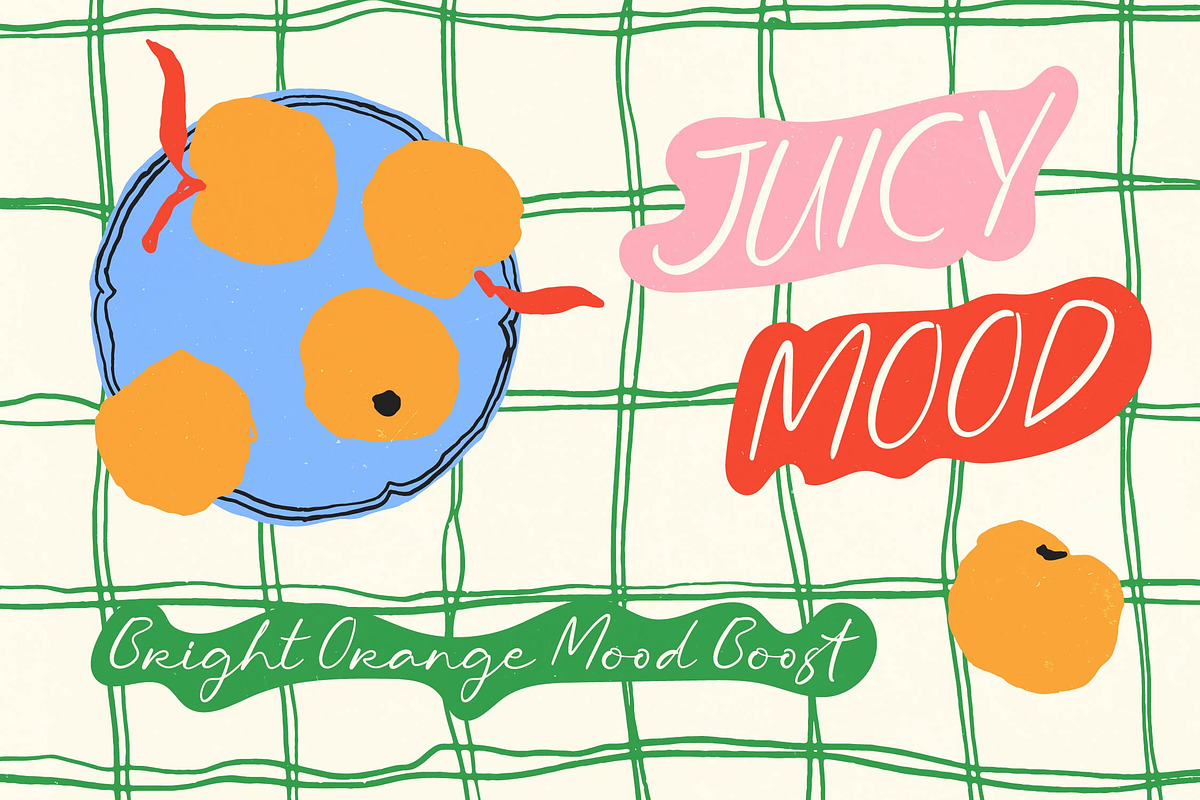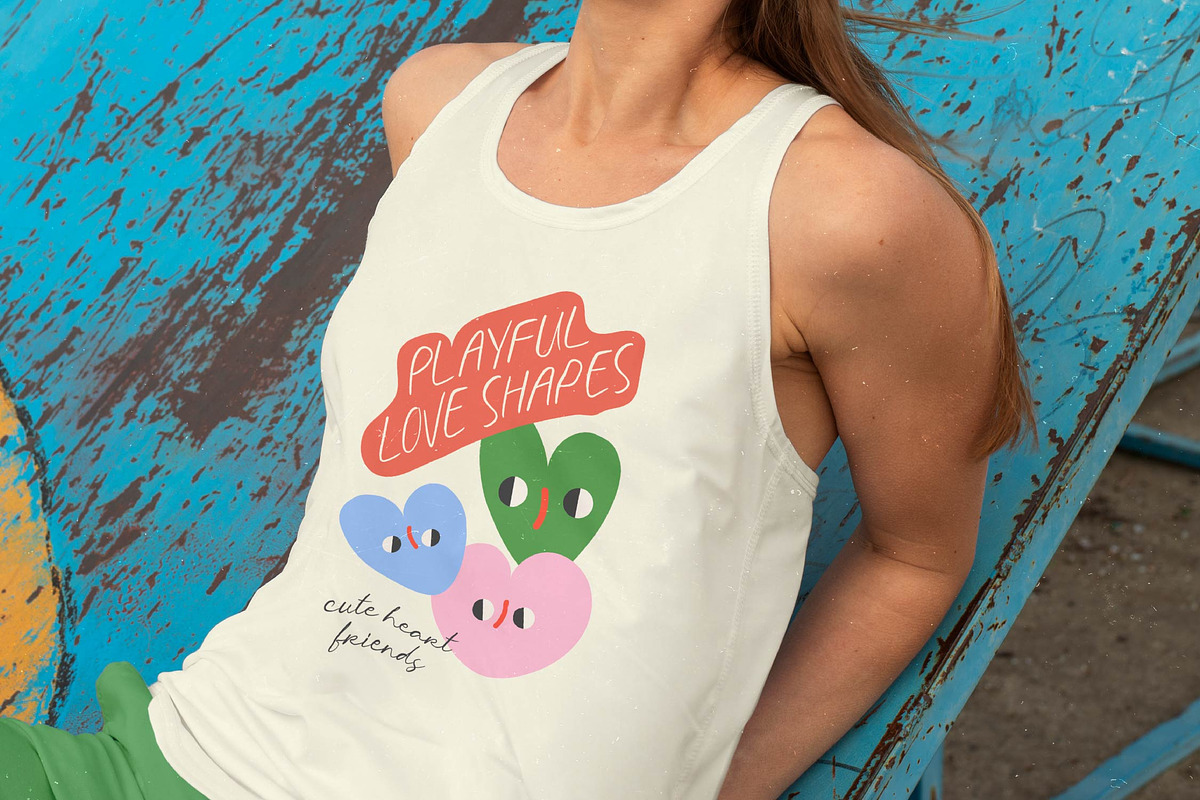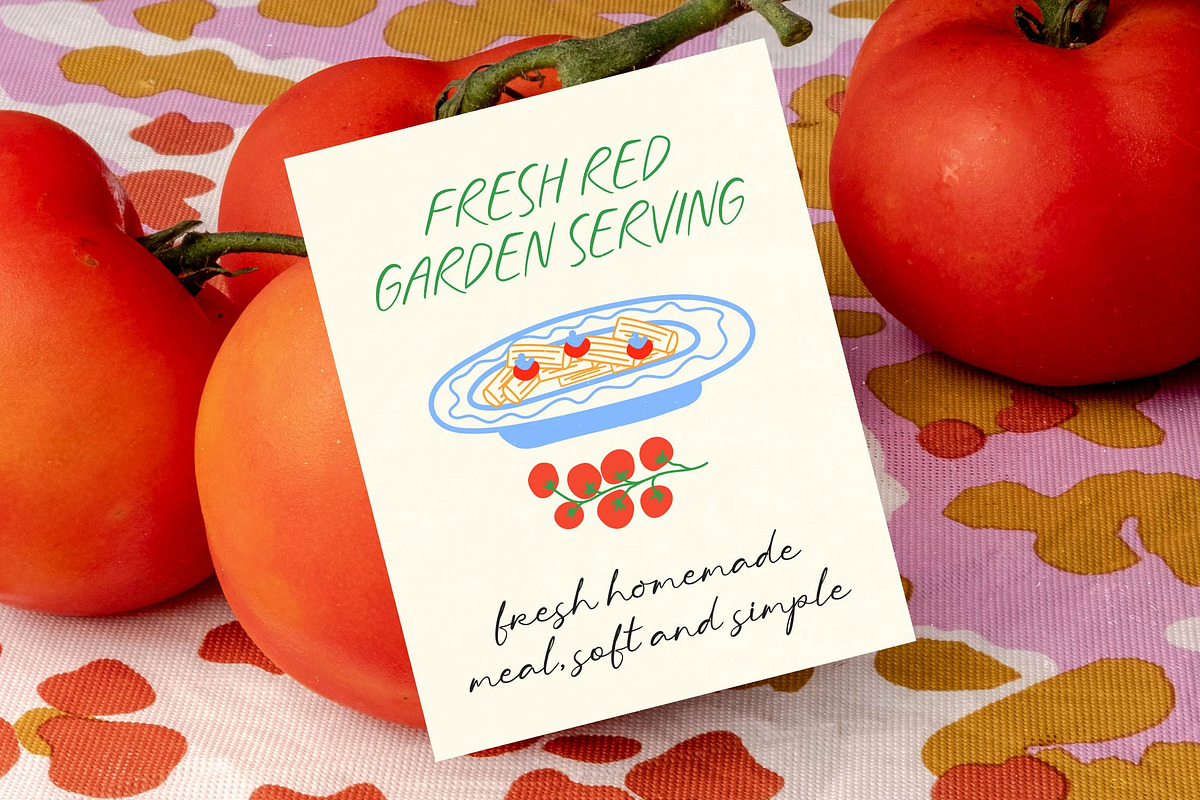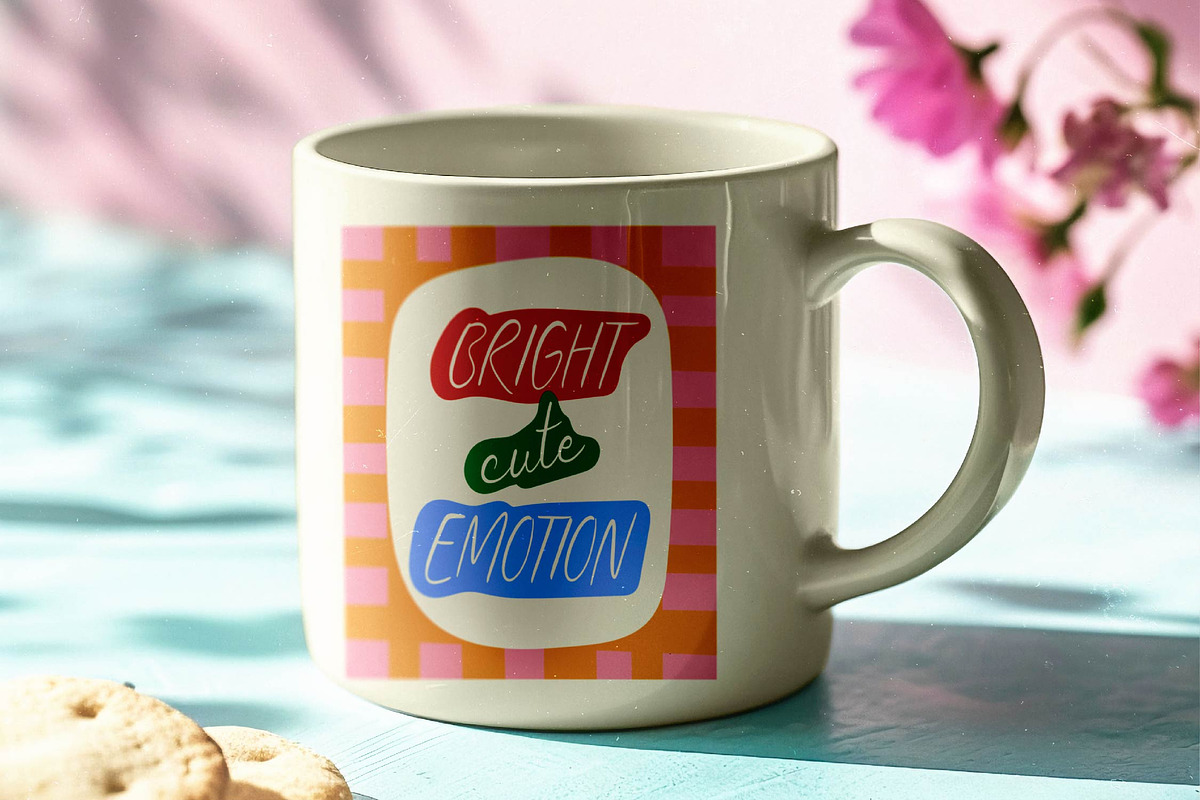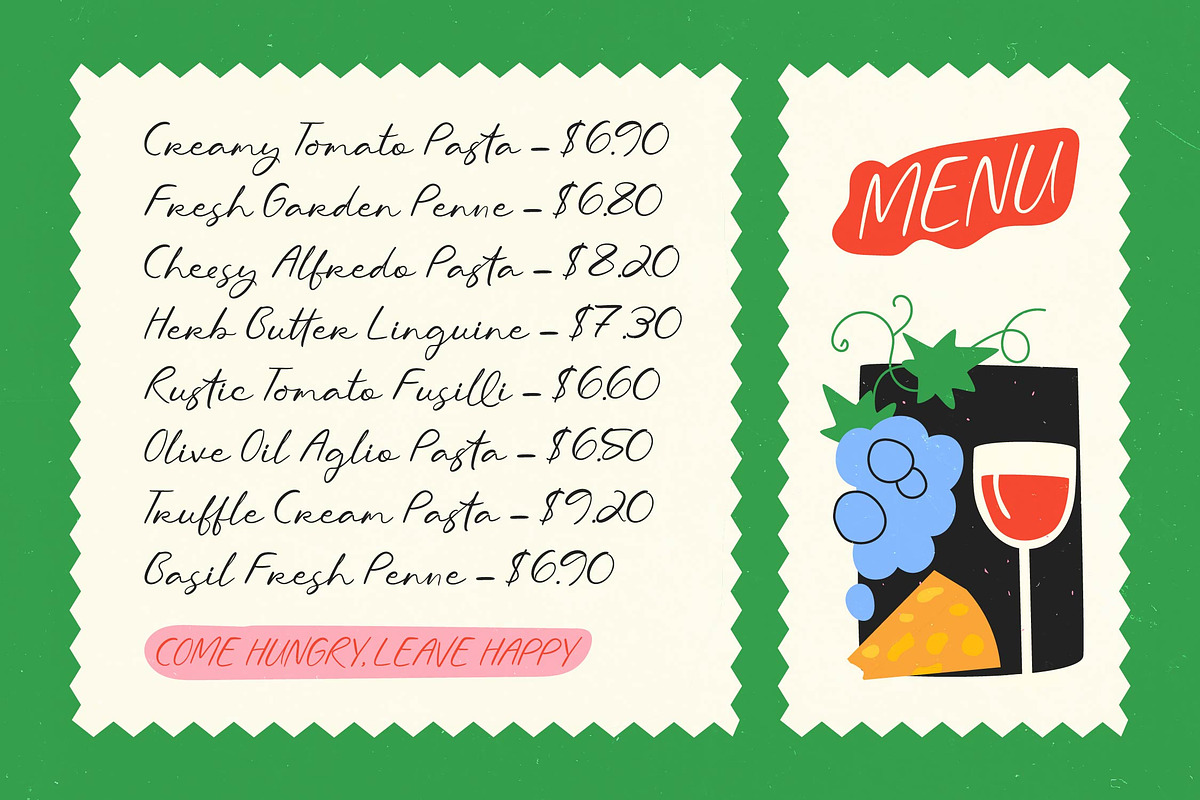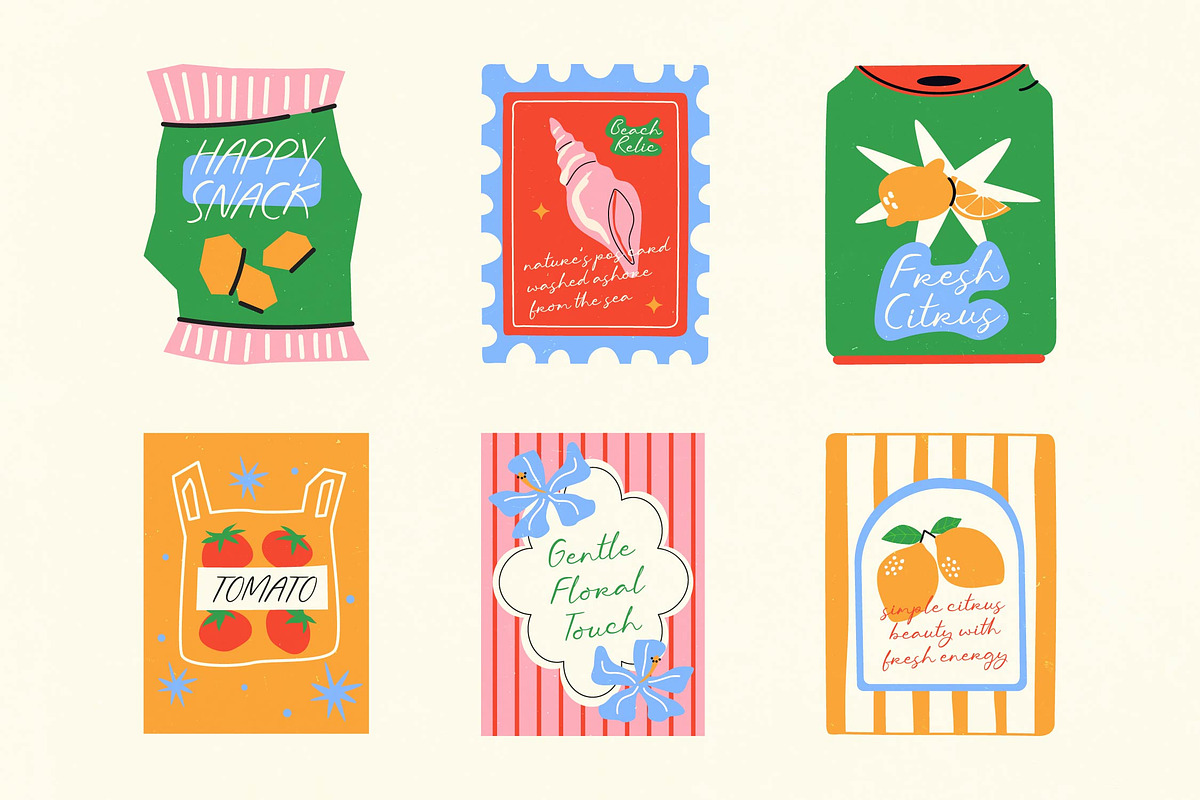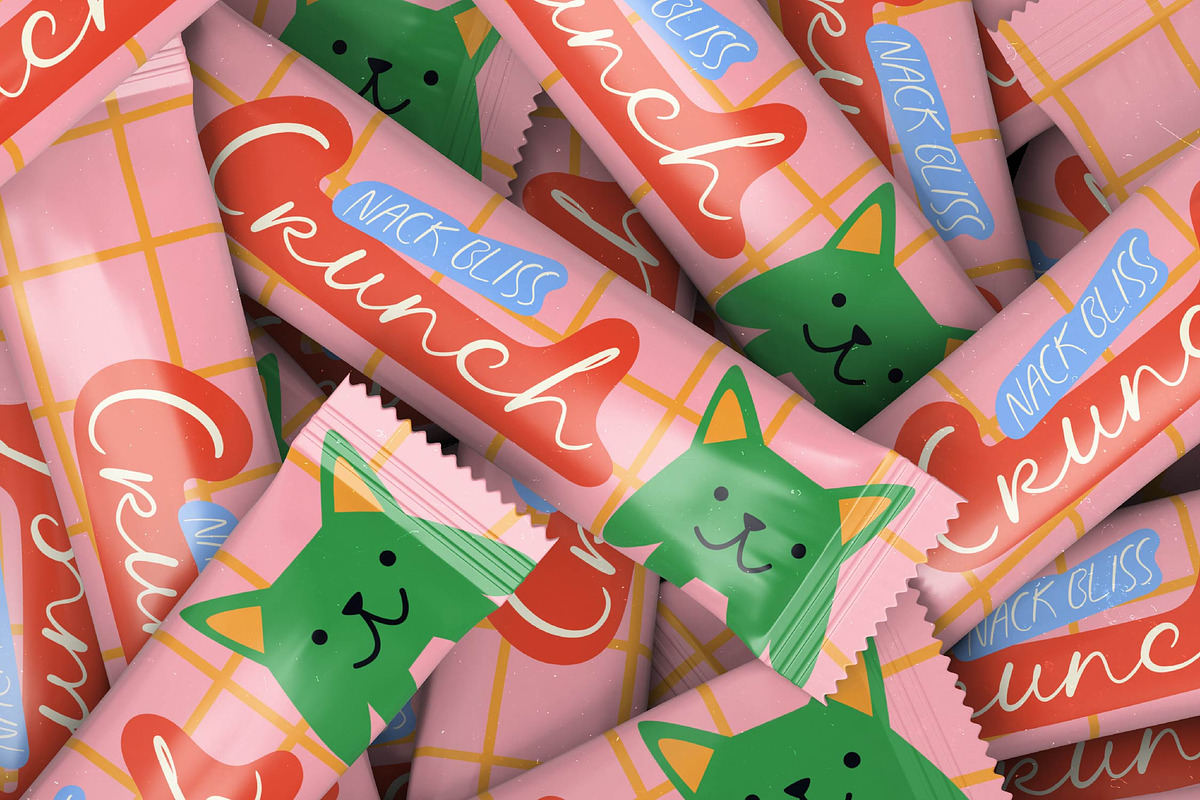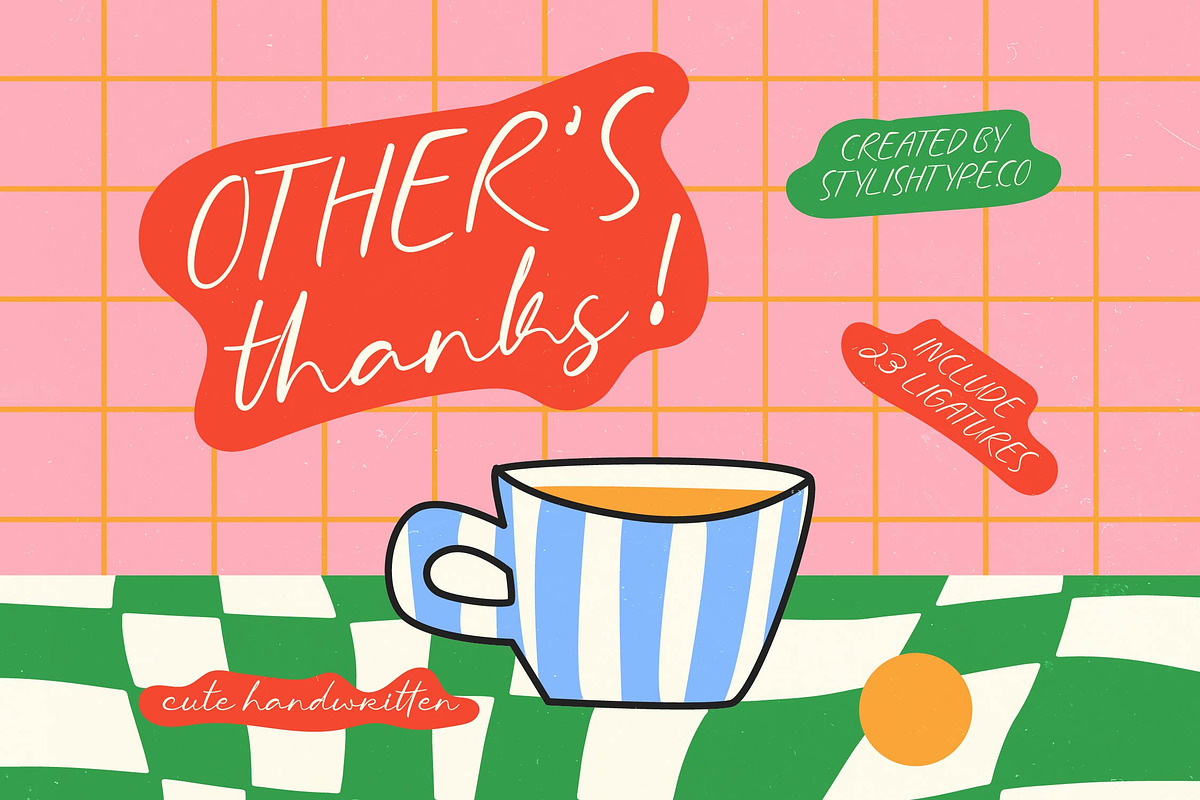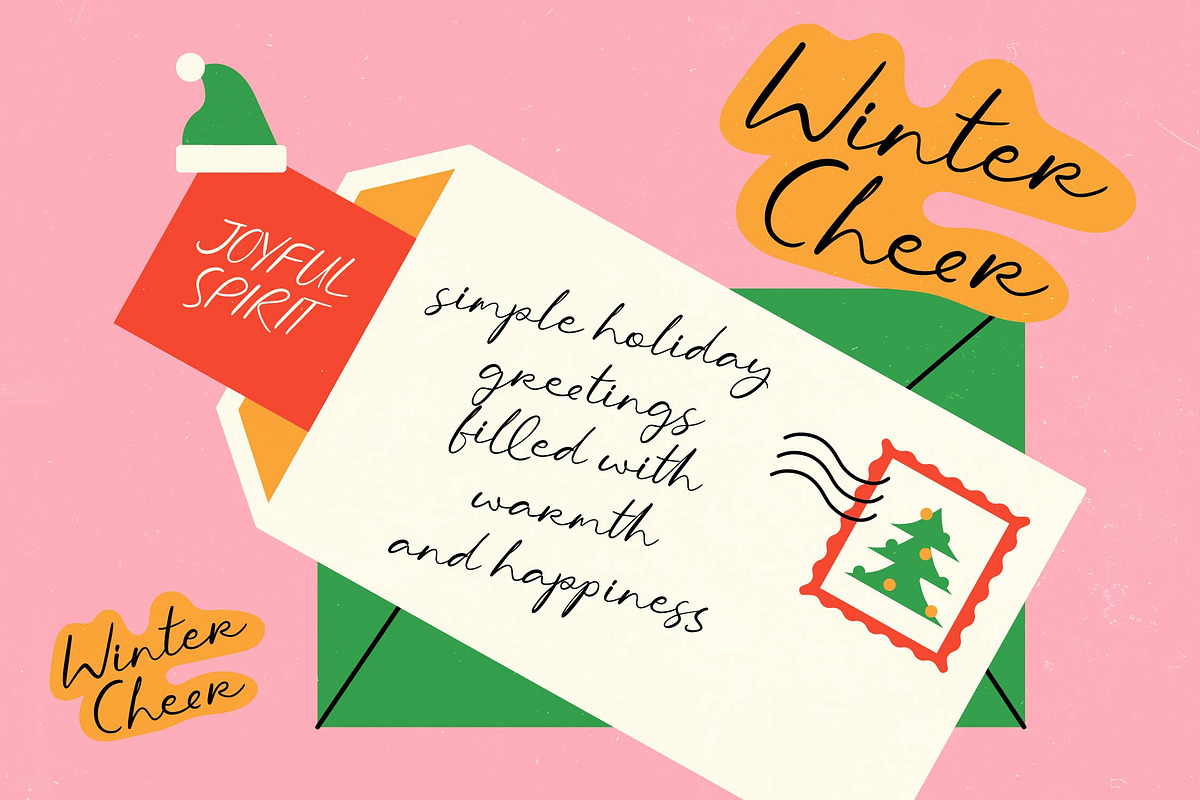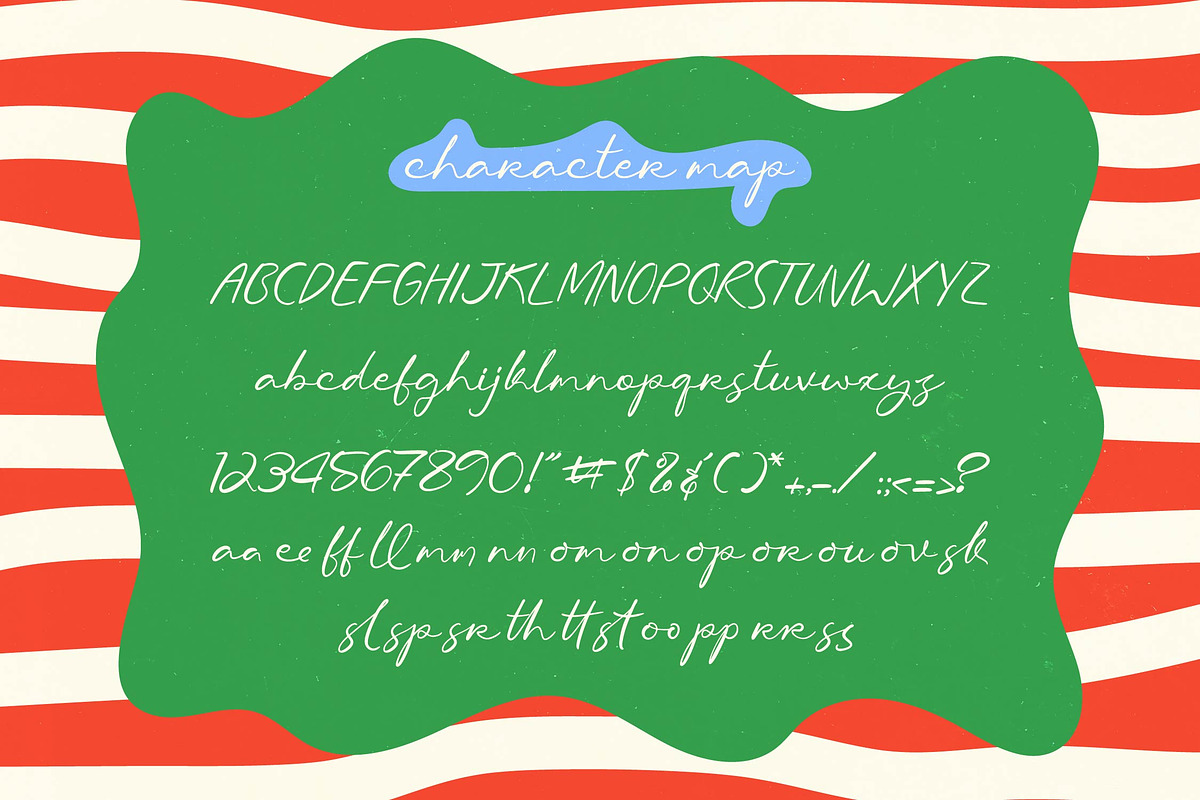
Other Thanks Cute Handwritten
Other Thanks - Cute Handwritten , Elevate your creative vision with a touch of authentic warmth and effortless style. Other Thanks - Cute Handwritten captures a playful aesthetic that feels both modern and nostalgic, characterized by its organic, hand-drawn strokes. This font is meticulously designed to bring a sense of personal connection and artistic charm to any layout, making it a standout choice for designers looking to inject personality and a handcrafted feel into their professional work.
Bridge the gap between local charm and global reach with a typeface built for the modern era. With its extensive multilingual support, Other Thanks - Cute Handwritten adapts seamlessly across global markets, making it incredibly versatile for international projects. This robust character set ensures that your brand message remains consistent and high-impact, providing a polished typographic solution for businesses aiming to resonate with diverse audiences worldwide.
Transform ordinary layouts into extraordinary brand experiences with the perfect typographic companion. Other Thanks - Cute Handwritten is perfectly suited for packaging design, luxury branding with a casual twist, and editorial layouts that require a friendly touch. Furthermore, it is the ideal application for social media graphics, custom merchandise, and stationery design, where its expressive letterforms and seamless ligatures create a truly memorable visual impact.
Unlock unparalleled versatility and creative freedom in your professional design toolkit today. By choosing Other Thanks - Cute Handwritten, you are investing in a high-quality typographic asset that expertly balances legibility with whimsical flair. Its unique personality and functional design provide the bespoke appearance of custom lettering, making Other Thanks - Cute Handwritten an essential and highly marketable asset for any forward-thinking creative professional seeking to elevate their brand identity.